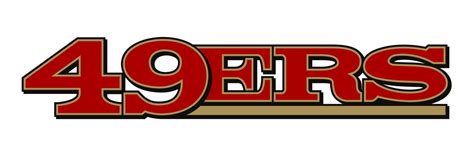
Unveiling The Iconic 49ers Logo Saloon Font
A Deep Dive into the Legendary 49ers Logo Saloon Font
Alright, guys, let’s kick things off by talking about something truly special in the world of sports branding: the San Francisco 49ers logo saloon font . This isn’t just any old typeface; it’s a veritable cornerstone of the team’s identity, a visual shorthand for history, tradition, and an unwavering fan passion that runs as deep as the Pacific Ocean. When you see those distinctive letters, it’s instant recognition, isn’t it? This western-inspired style immediately evokes images of the rugged, adventurous Gold Rush era, transporting you back to a time of grit and determination. It’s more than just a font; it’s a powerful narrative in typography, telling the story of the team’s origins and its enduring spirit. The visual impact of this specific font is undeniable. It sets the San Francisco 49ers apart in a crowded landscape of professional sports teams, making them instantly recognizable not just within the NFL, but across global sports culture. Every curve, every serif, every bold stroke whispers tales of perseverance and triumph. This typeface is deeply ingrained in the very essence of the team’s identity , forming a strong, unbreakable connection to the city of San Francisco itself, a place known for its pioneering spirit and unique character. It communicates strength, heritage, and a kind of timeless cool that resonates deeply with generations of fans. We’re going to really dig into what makes this specific font so integral to the 49ers brand , from its fascinating historical roots to its ubiquitous modern-day presence on merchandise, stadium banners, and, most importantly, in the hearts and minds of the devoted 49ers Faithful . It’s a design element that truly transcends its functional purpose, becoming a symbol of allegiance and a touchstone of shared experience. So, buckle up, because we’re about to explore the rich tapestry behind one of the most iconic fonts in all of sports.
The Rich History Behind the 49ers Logo Font
Let’s really delve into the captivating historical context that shaped the San Francisco 49ers logo saloon font . To understand its essence, we need to trace its origins right back to the team’s formative years, a period undoubtedly influenced and inspired by the electrifying California Gold Rush aesthetic that dramatically defined the mid-19th century. Imagine the bustling streets, the ambitious prospectors, and the raw energy of an era where fortunes were made and lost overnight. This saloon-style typography became an immediate, powerful visual link, synonymous with the adventurous, pioneering spirit of the historical Forty-Niners —those audacious gold-seekers who flocked to California in 1849—and, by extension, the football team named in their honor. The connection is not just symbolic; it’s a deliberate, well-executed piece of branding that draws directly from that rich local history. We can easily imagine potential influences stemming from classic western town signage , the intricate lettering on old bank notes of the period, or even the bold, declarative text found on wanted posters from that bygone era. Each of these elements contributed to a visual language that spoke of rugged individualism, ambition, and a distinctly American frontier spirit. What’s truly remarkable is the evolution of the 49ers logo itself. While elements have seen subtle refinements and modernizations over the decades, this distinctive saloon font has largely remained a steadfast constant. It’s a testament to its timeless appeal and its foundational role in the team’s brand. This enduring presence, this historical connection, lends an incredible layer of authenticity and depth to the team’s visual identity . It’s not just a design choice; it’s a narrative thread woven through the fabric of the team, making it resonate profoundly with legions of fans who deeply appreciate the legacy and tradition embedded in every single game. This font acts as a visual anchor, firmly rooting the team in its historical and geographical context, making it much more than just a football team – it’s a living piece of Californian history. The very character of the letters embodies the spirit of risk-taking and the pursuit of glory, mirroring the journey of both the prospectors and the athletes who wear the 49ers uniform .
What Makes the 49ers Saloon Font Uniquely Iconic?
So, what exactly are the secret ingredients that make the 49ers logo saloon font so unmistakably unique and iconic? Let’s zoom in on its distinctive features. At its core, you’ll notice its bold, blocky structure , a design choice that immediately conveys strength and solidity. But it’s not just blocky; it often incorporates serifs with unique angles or even subtle decorative flourishes that are hallmark characteristics of authentic western typography . These aren’t arbitrary additions; they’re carefully crafted elements that pay homage to a specific era and aesthetic. Think about the heavy weight of the letters – they don’t just sit on the page; they make a statement, giving them a sense of permanence, authority, and unyielding strength. This weight isn’t just visual; it subconsciously communicates the team’s resilience and formidable presence on the field. Furthermore, if you look closely, you’ll observe slight variations in letter width and the distinctive crossbars on letters like the ‘A’ or ‘H’, which aren’t perfectly uniform but rather possess a handmade, rugged quality. These nuanced design elements collectively contribute to its truly unique character, making it immediately recognizable even when seen out of context. While there are many